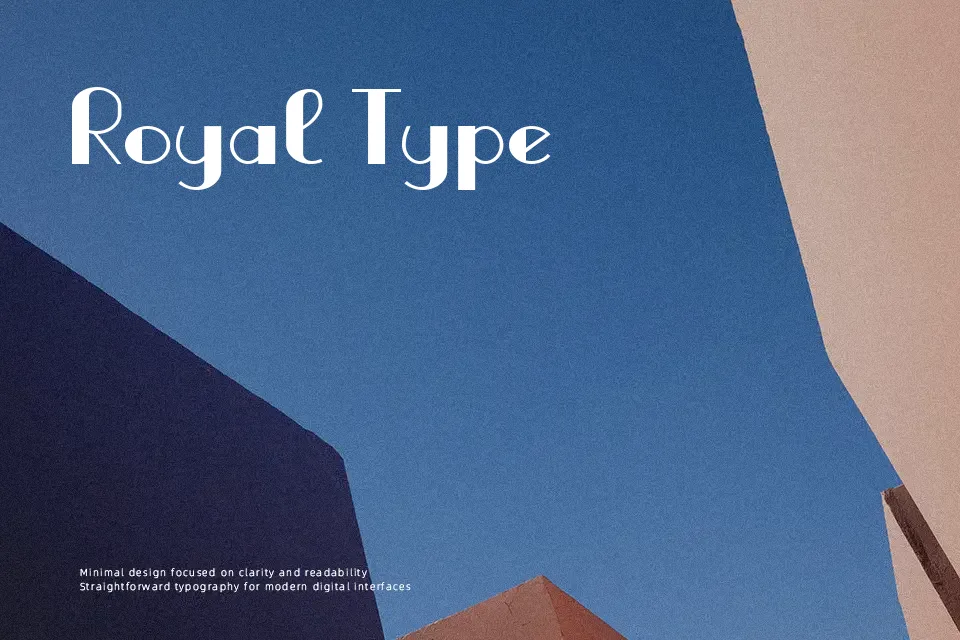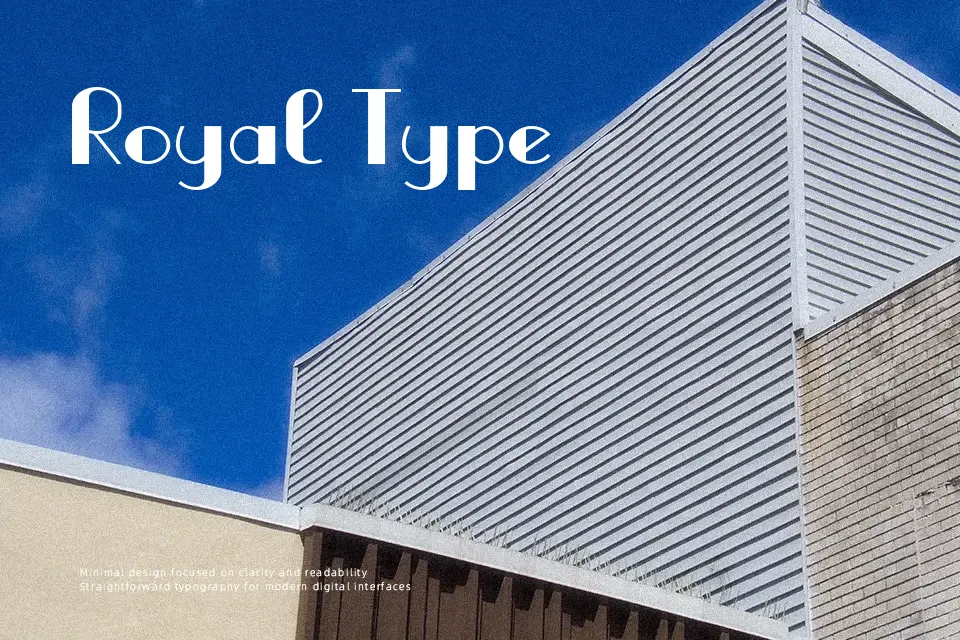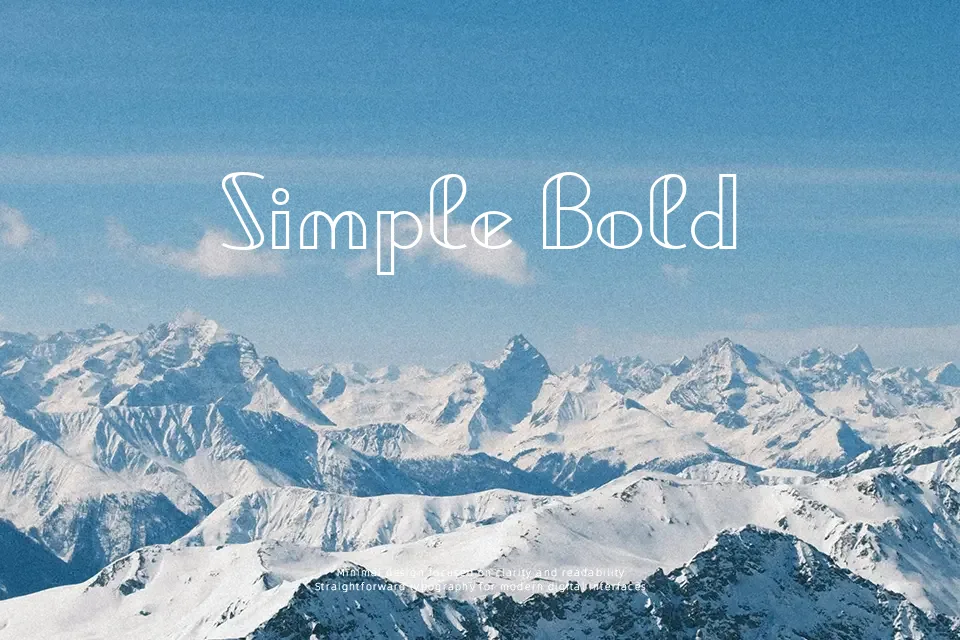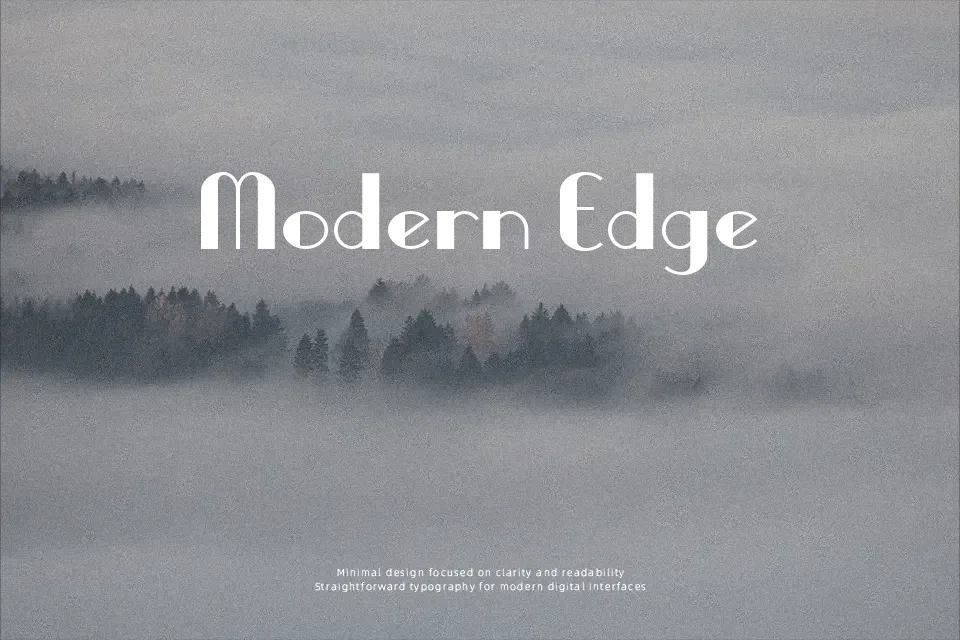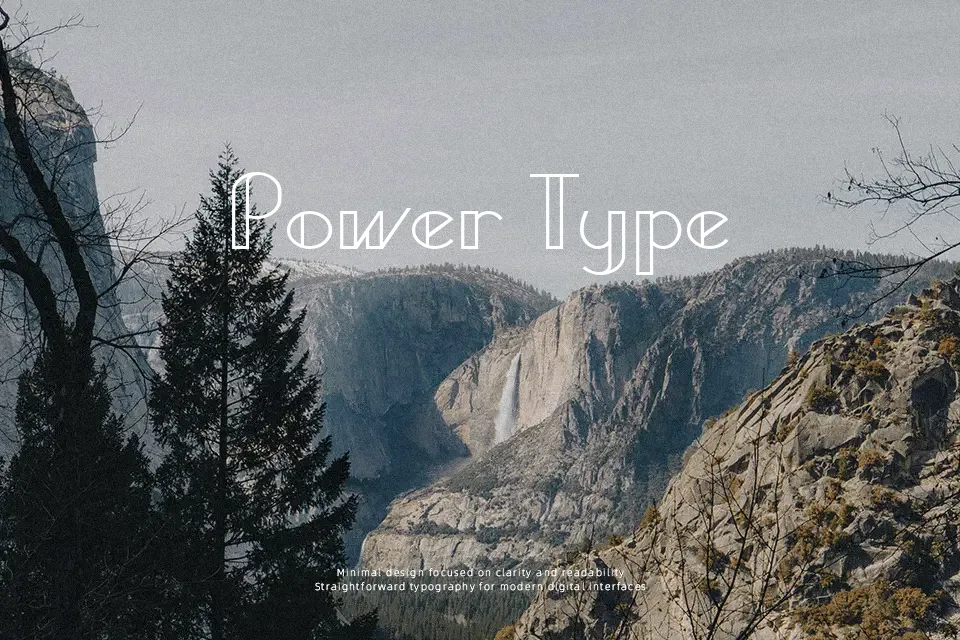
Valentino Font
Designed by Yves Michel
Valentino Font delivers dramatic decorative letterforms characterized by undulating strokes, flared terminals, and organic curves that capture classic period charm. The design features moderate stroke contrast with generous width and deliberate character spacing to preserve individual glyph shapes. These ornate letterforms command attention in poster headings, themed logos, and specialty packaging labels where expressive retro character is required. Ornate flourishes reduce clarity at small sizes, making the typeface far less effective for continuous text. Overall, the typeface provides distinctive visual presence when given ample breathing room in large display compositions.
vintage poster headlines,retro product packaging,specialty brand logos,thematic event invitations
continuous paragraph reading,dense mobile interfaces,compact data tables,small caption text